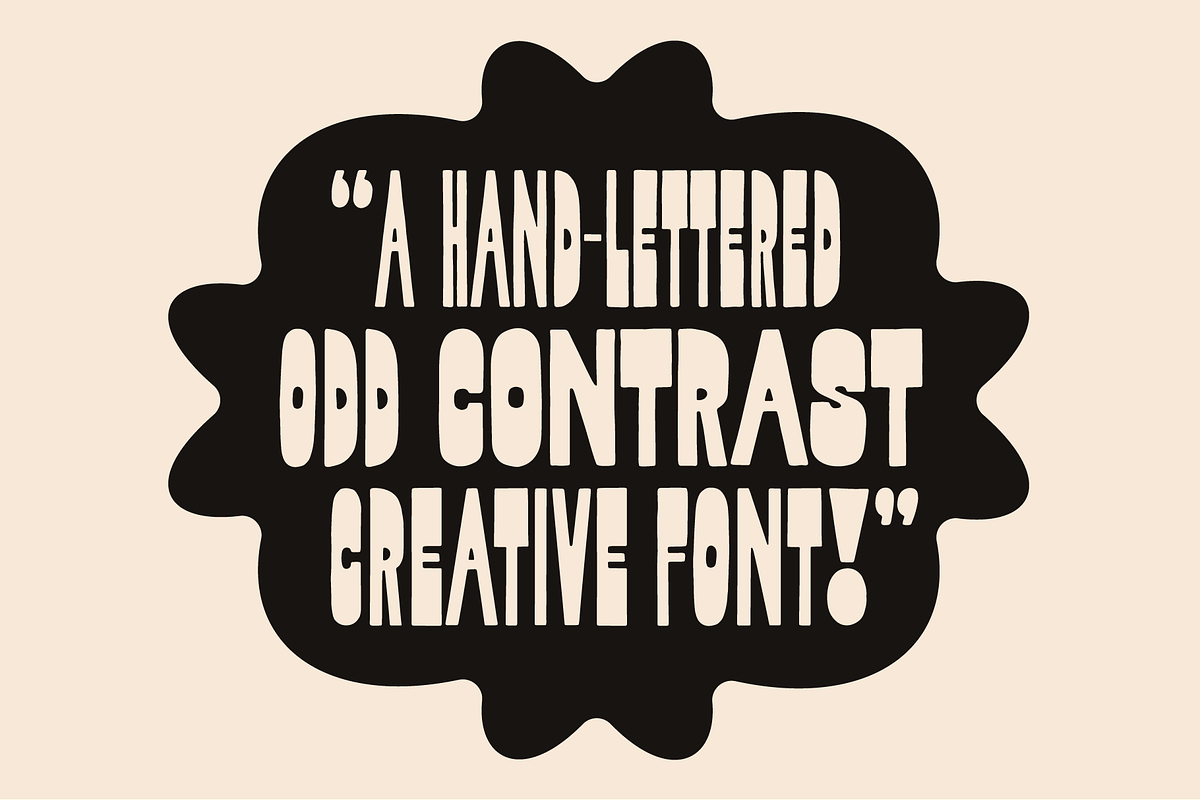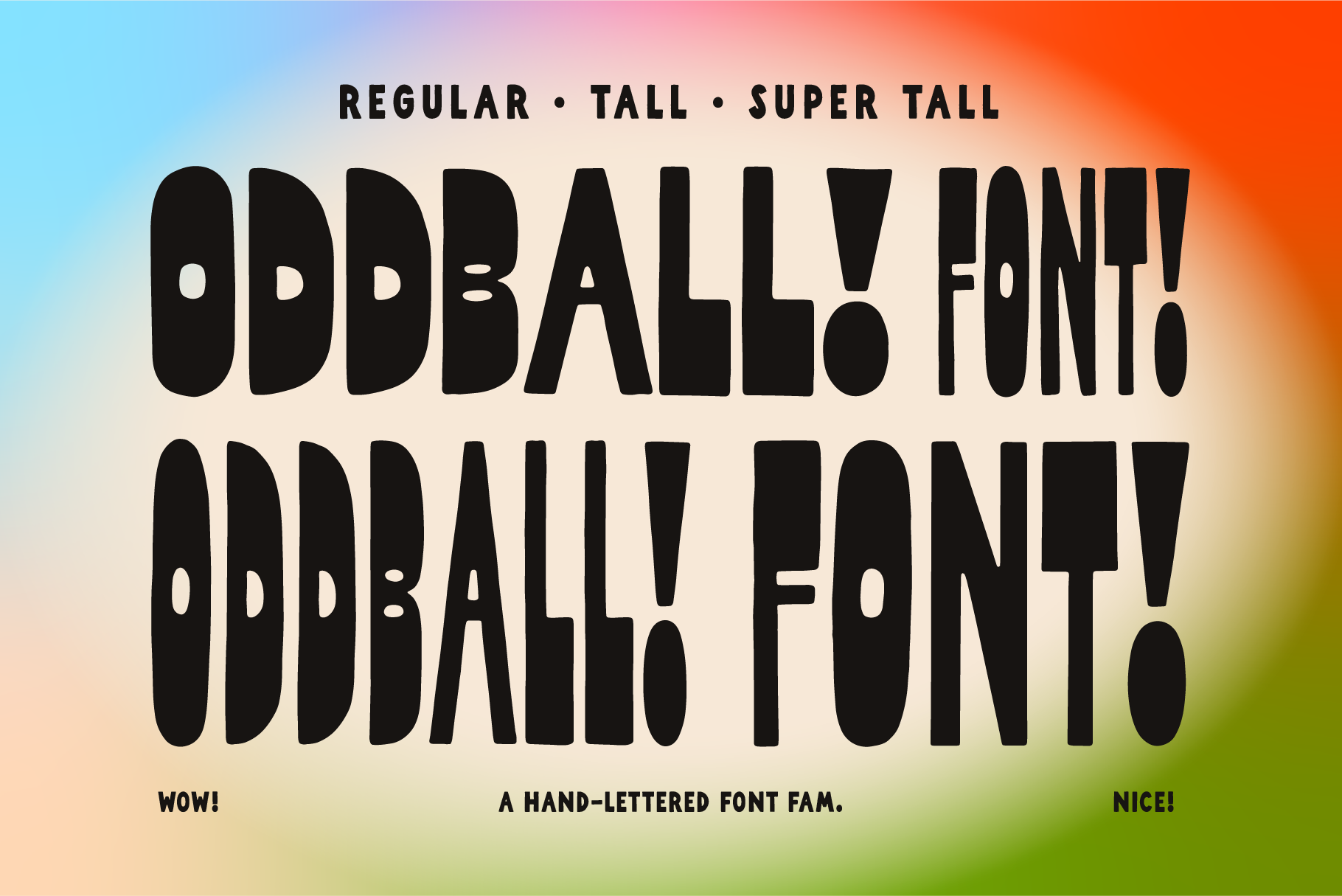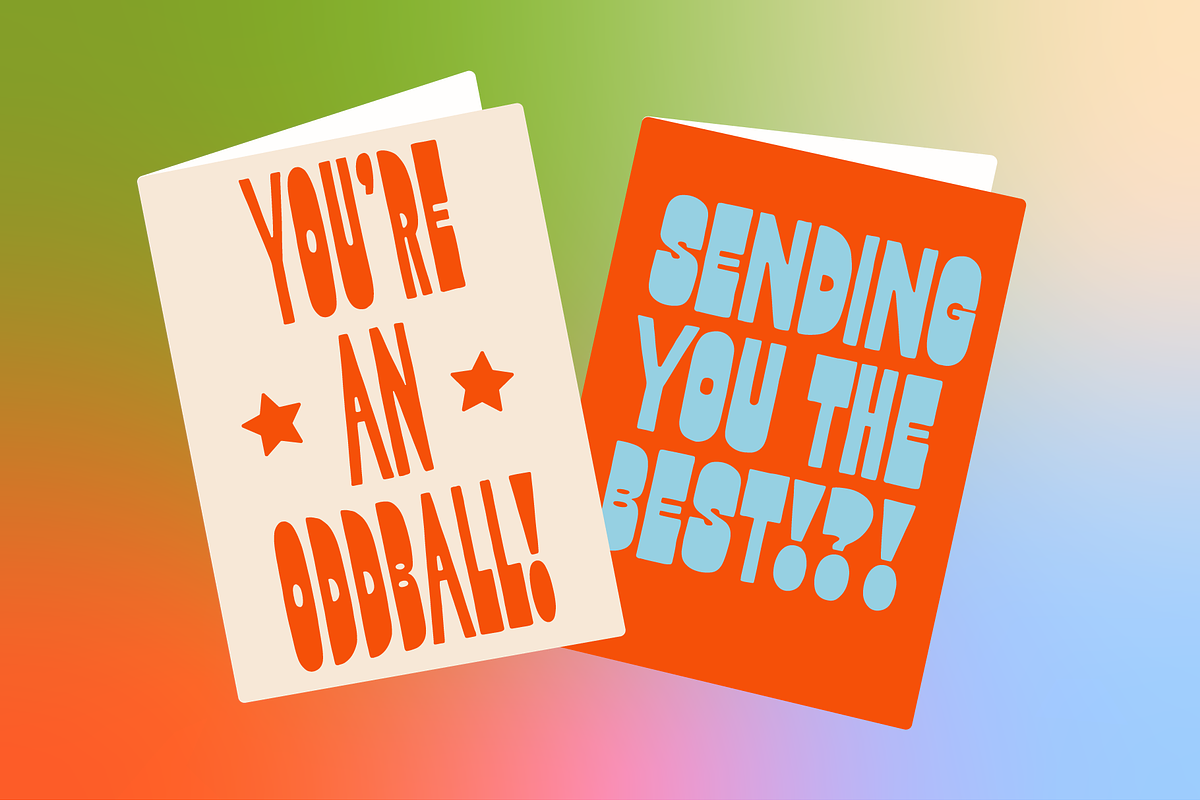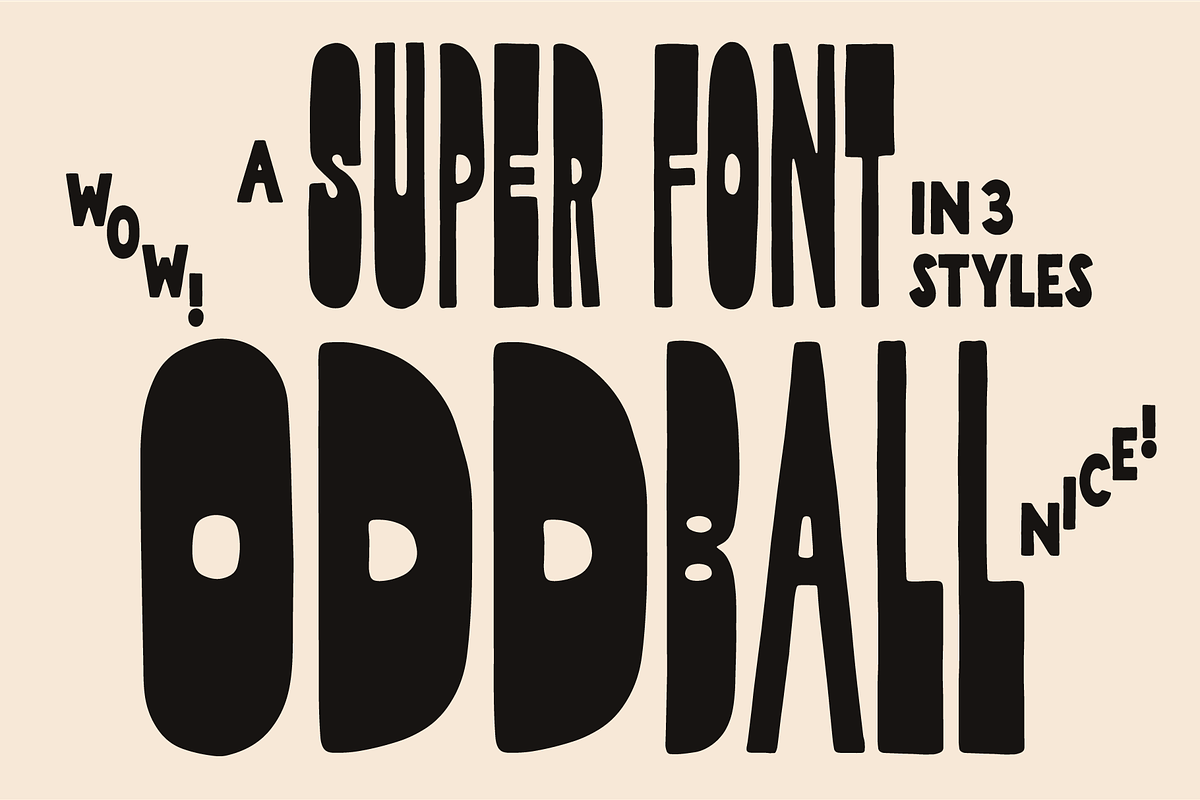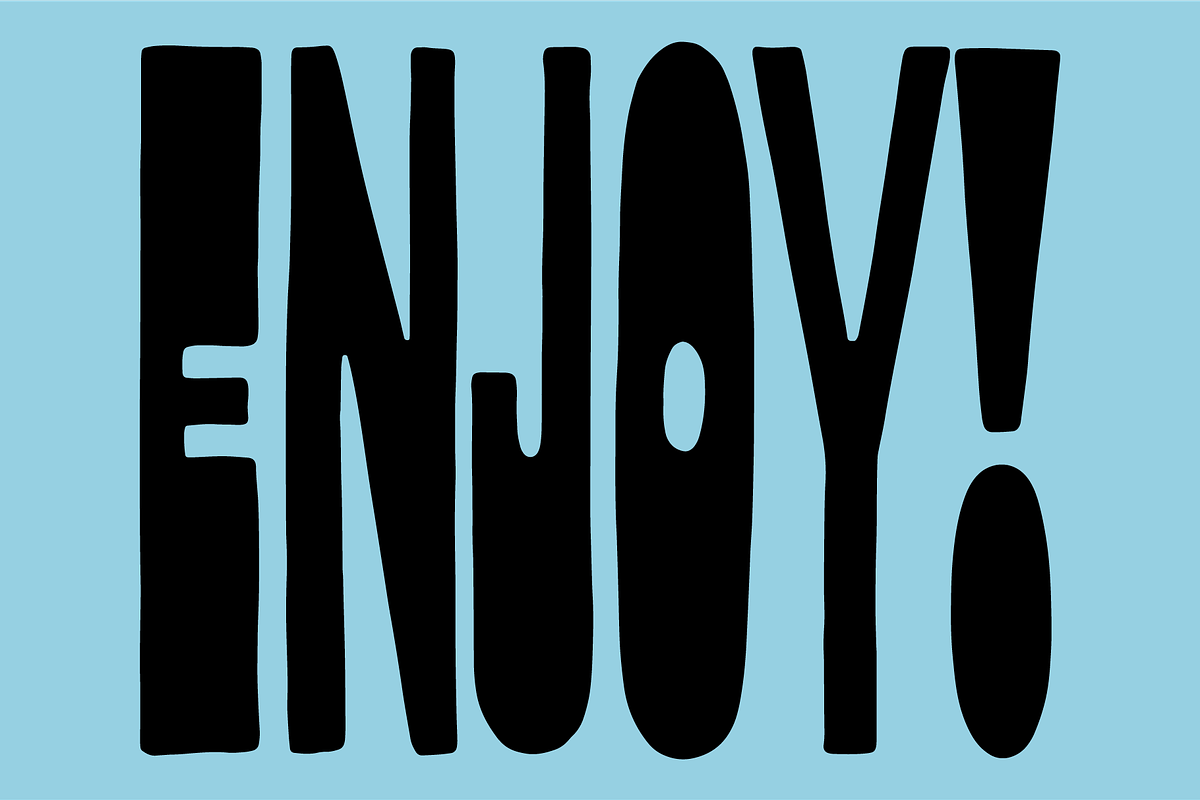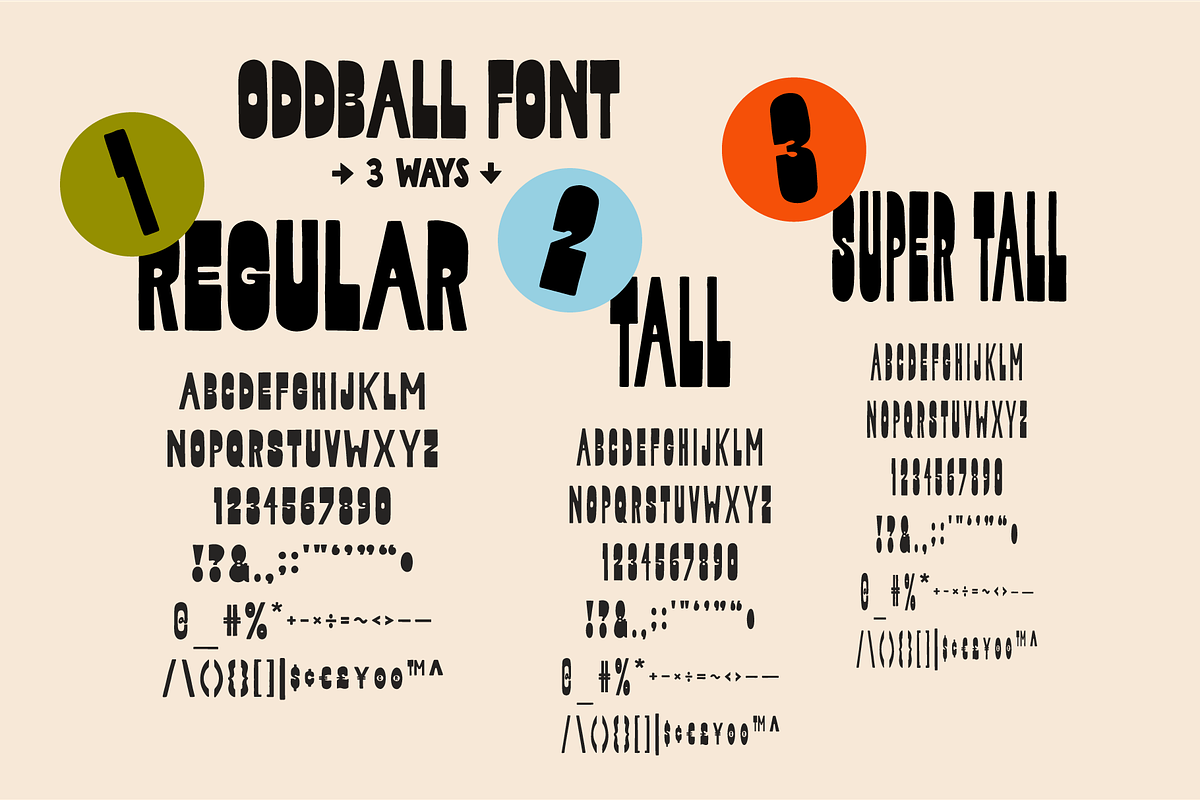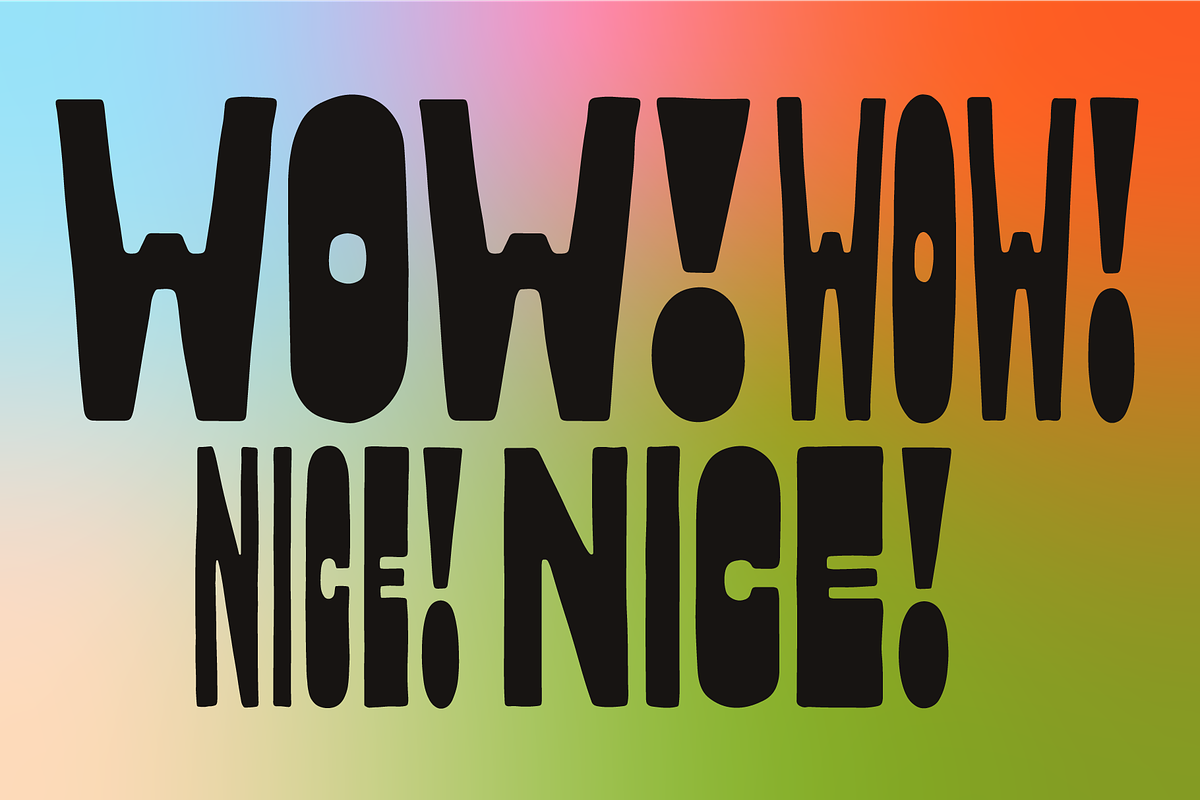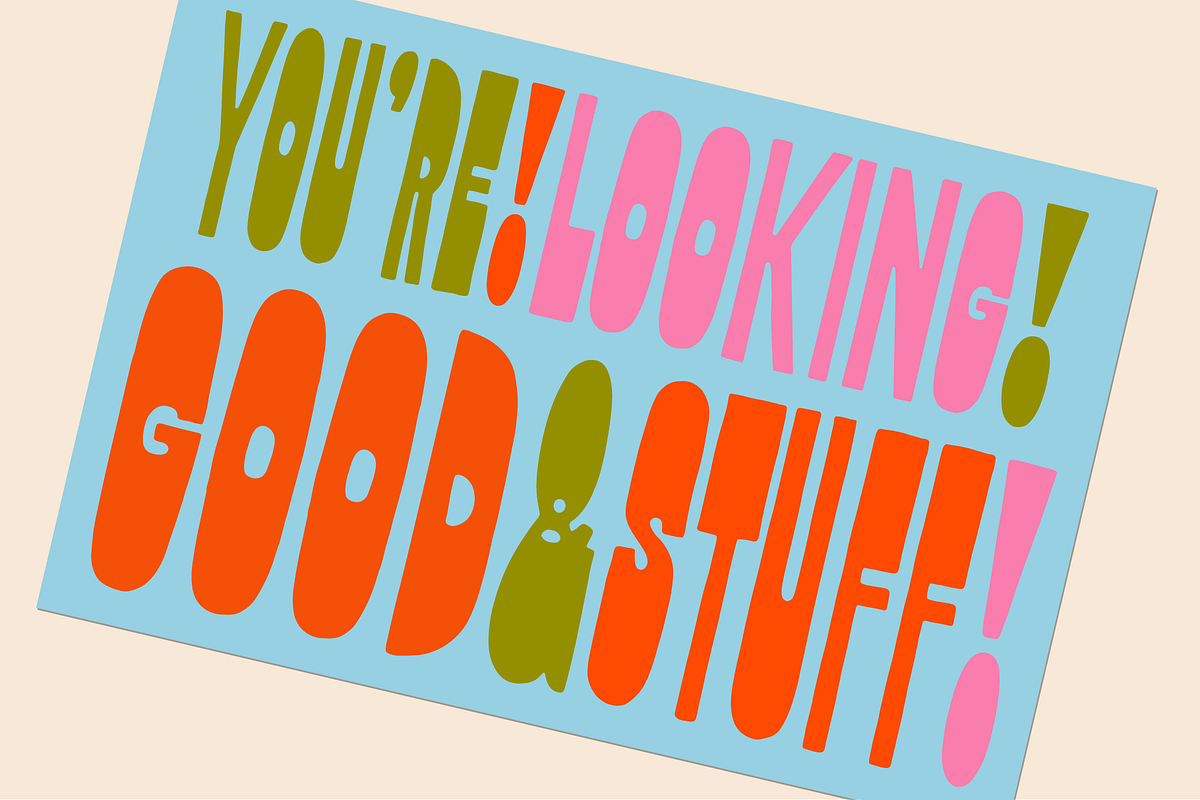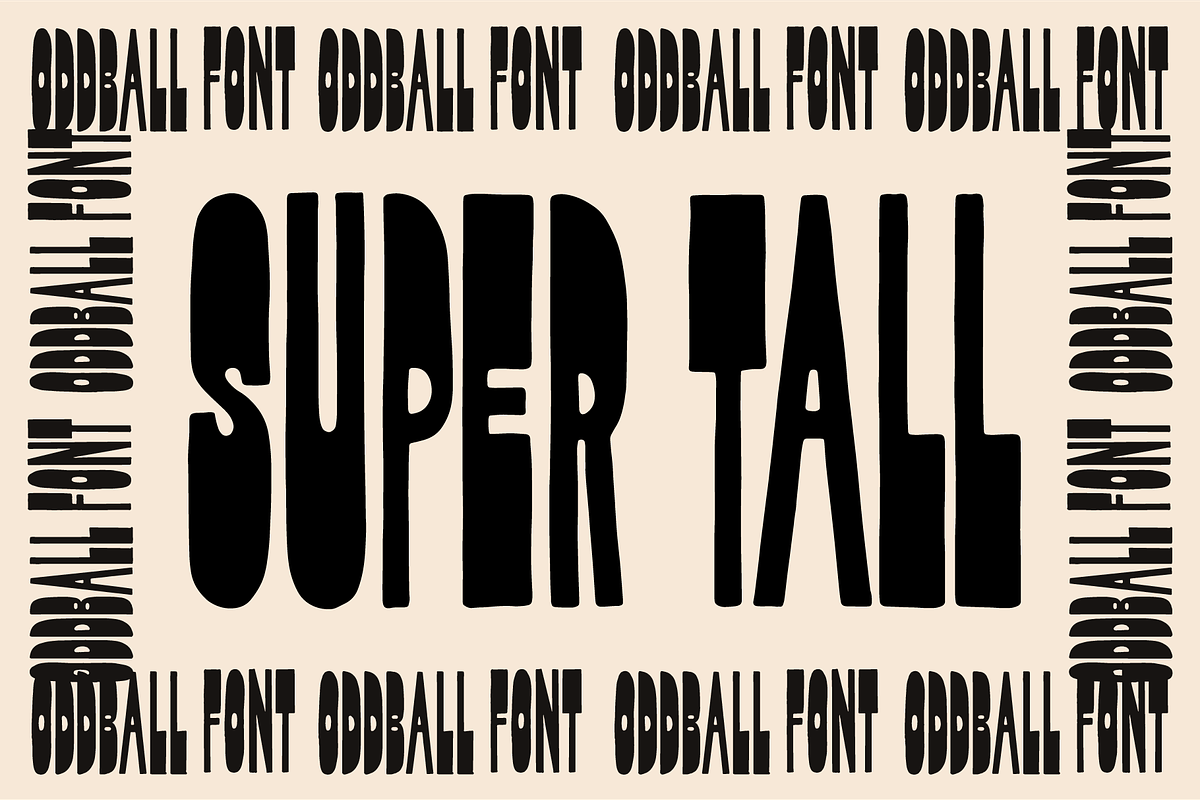
Oddball Font Collection! Hand-drawn!
Oddball Font Collection! This is a set of 3 bold, hand-lettered, reverse contrast, uppercase fonts inspired by old and new stuff. Enjoy!
Includes 3 different heights you can play with to create unique compositions. I drew each character to give you a font that looks hand-lettered without having to take the time to draw it all yourself.
This tall condensed font is especially nice for display. Also great for logos, quotes, art, signs, titles, and a handmade touch. Enjoy!
What's in the font? Uppercase Letters A-Z! Numbers! Symbols! Punctuation! (see slides)